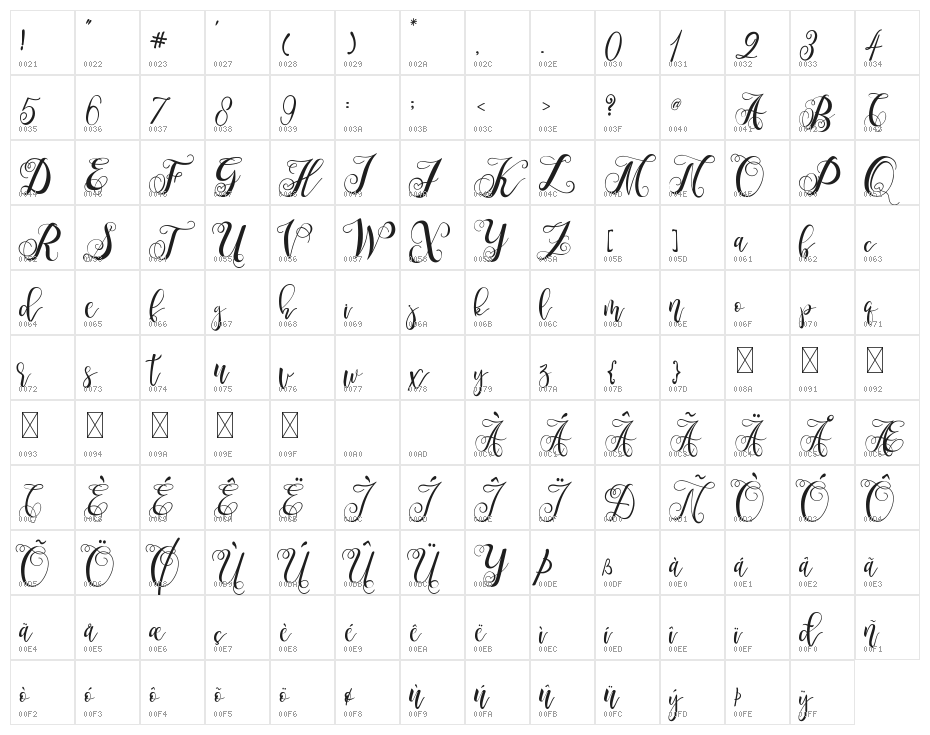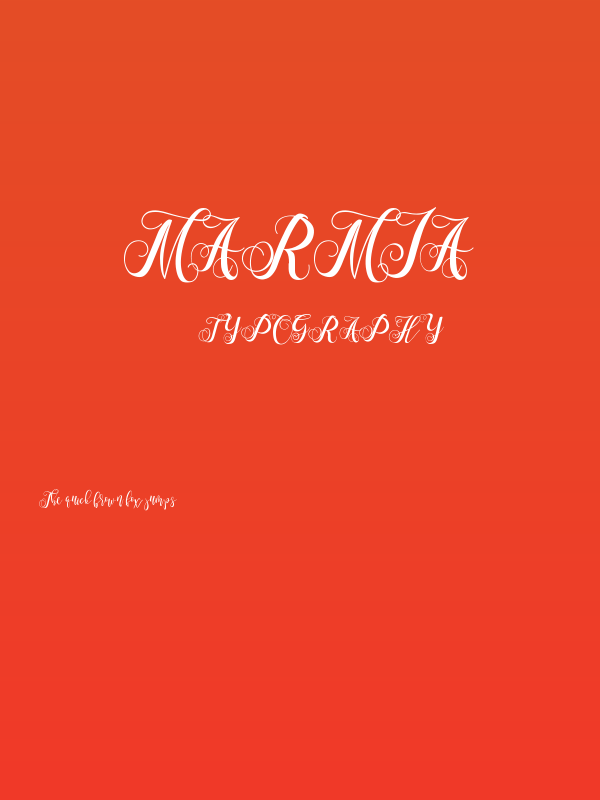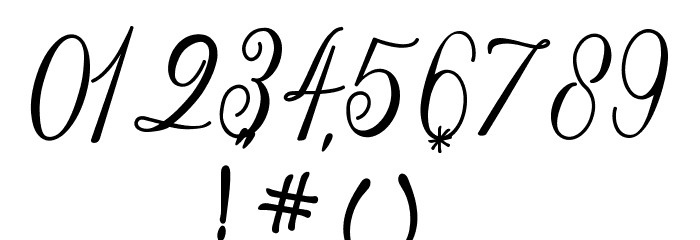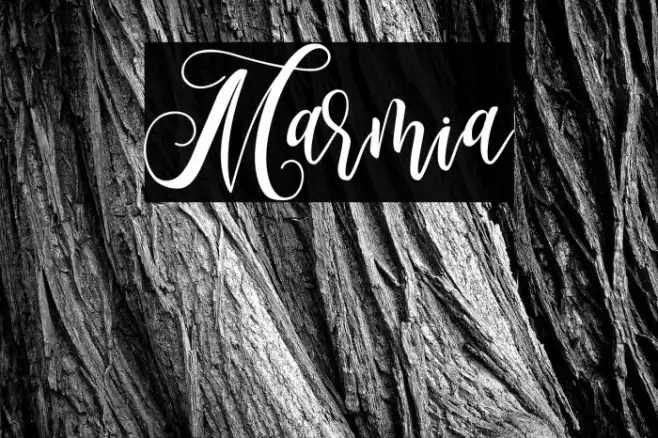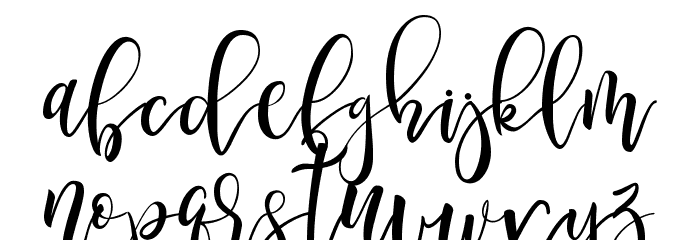
Marmia Font
Marmia Description
This font features an elegant and sophisticated script style, characterized by its flowing, interconnected letters and ornate swashes. The uppercase letters are particularly decorative, with intricate loops and flourishes that give a sense of movement and grace. The lowercase letters maintain a cohesive style, with smooth curves and a slightly more restrained use of embellishments. The numerals and special characters are consistent with the overall aesthetic, offering a harmonious blend of style and readability. This font exudes a sense of luxury and refinement, making it ideal for projects that require a touch of elegance.
| Overall Style | Elegant, Decorative |
| Use Case | Logos, Invitations, Decorative text |
| Proposed Projects | Wedding invitations, luxury branding, elegant packaging, greeting cards, and high-end event signage. |